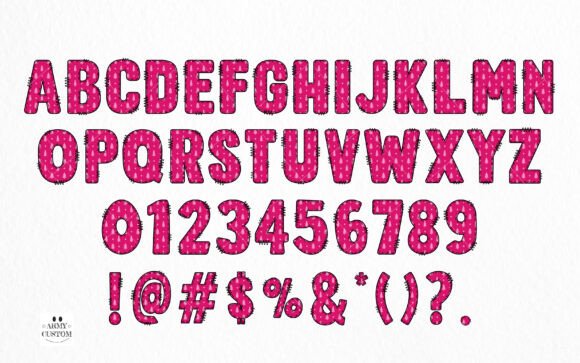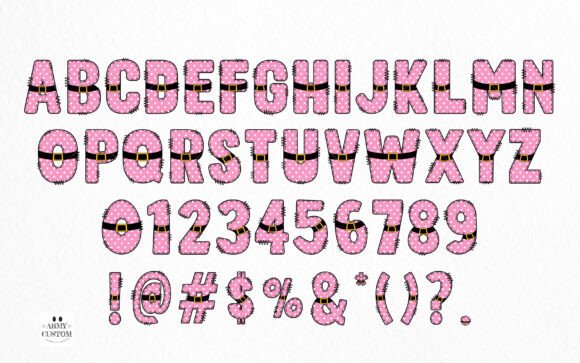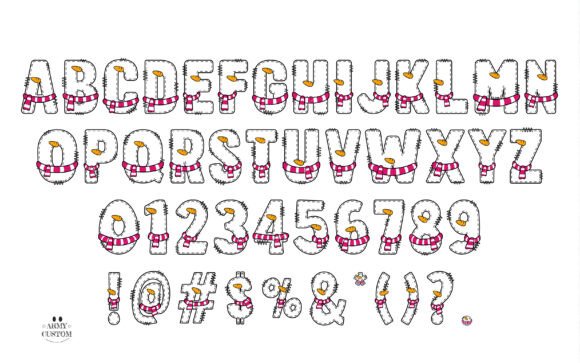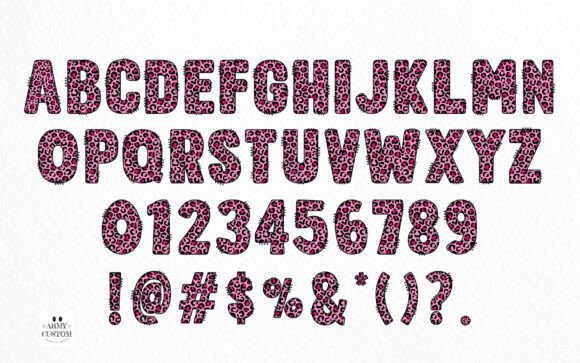
Elevate Your Festive Projects with the Delightful Christmas Army Bundle Font
The holiday season is upon us, and with it comes the joy of creating festive projects that bring cheer and merriment to our loved ones. As designers and crafters, we’re always on the lookout for unique and playful fonts to add a touch of magic to our holiday designs. That’s where the NO.12 Christmas Army Font comes in – a delightful addition to your holiday design toolkit that’s sure to bring a smile to your face.
A Playful and Whimsical Font
The Christmas Army Font is a jovial and whimsical font that’s perfect for creating vibrant holiday decorations, greeting cards, and other design projects. Its playful style is inspired by the adorable antics of Santa’s helpers, making it an ideal choice for adding a dash of merriment to any design. With this font, every letter spelled out becomes a joyous celebration, bringing the spirit of the holiday season to life.
Why Choose the Christmas Army Font?
So, why choose the Christmas Army Font for your holiday projects? Here are just a few reasons why this font stands out:
- Unique and Playful Style: The Christmas Army Font has a one-of-a-kind, playful style that’s sure to add a touch of whimsy to your holiday designs.
- Easy to Use: With the Christmas Army Font, you can create stunning holiday designs without needing extensive design experience.
- Inspired by the Holiday Season: This font is inspired by the magic and wonder of the holiday season, making it the perfect choice for creating festive projects.
Tips for Using the Christmas Army Font
Here are a few tips for getting the most out of the Christmas Army Font:
- Experiment with Different Colors: Try pairing the Christmas Army Font with different colors and textures to create unique and eye-catching designs.
- Mix and Match with Other Fonts: Combine the Christmas Army Font with other fonts to create interesting and dynamic typography.
- Use it for a Range of Projects: From holiday cards to decorations, the Christmas Army Font is versatile enough to be used for a wide range of projects.
The Christmas Army Bundle Font is a delightful addition to any design toolkit, offering a playful and whimsical style that’s perfect for the holiday season. With its versatility, ease of use, and unique style, this font is sure to bring joy and merriment to your holiday projects. So why wait? Download the Christmas Army Font today and elevate your festive designs to the next level!